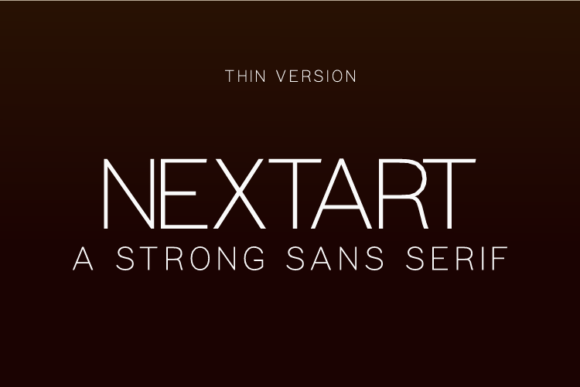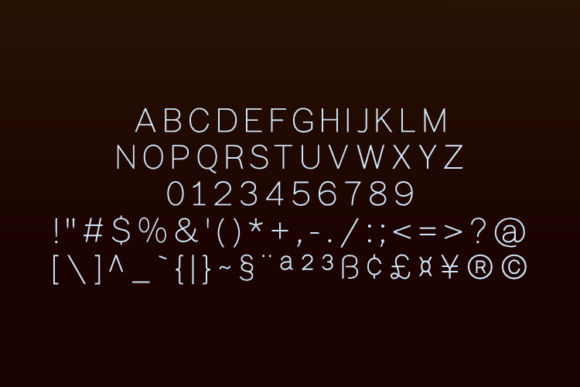
HomeSans Serif FontsNextart Thin Font Sans Serif Fonts Nextart Thin Font FacebookTwitterPinterestWhatsApp Nextart Thin Font 1 of 2 About Nextart Thin Font Nextart is a romantic, timeless, and minimalistic all caps sans serif font that looks stunning in any context. It’s perfect for magazine layouts, invitations, headers, or even large-scale artwork. DOWNLOAD NOW People also explored Romantika Font Arskate Sand Beach Font Sevigne Hopeless Font Gahesia Font Disney Lover Font Signature in Card Font Sweet Signature Font 189 0 TagsNextart Thin Font Previous articleNextart Extra Light FontNext articleObligod Extra Black Font LEAVE A REPLY Cancel reply Comment: Please enter your comment! Name:* Please enter your name here Email:* You have entered an incorrect email address! Please enter your email address here Website: Save my name, email, and website in this browser for the next time I comment. Personal Use Free Kitchen Blue Personal Use Free Read more about this font Happy Camping Personal Use Free Read more about this font BD TinyFont Personal Use Free Read more about this font Husky Stash Personal Use Free Read more about this font BLOG Free vs Paid Fonts: Why Investing in Premium Fonts Is Worth It Free vs Paid Fonts: Why Premium Fonts Are Worth It in 2025 The debate of free vs paid fonts continues in the design world. While... Using Fonts in Digital Marketing: Tips to Strengthen Your Brand Identity To increase your work productivity, choose the most readable fonts. Transform Your Website: Elevate Your Typography with 7 Best Web Font Generators